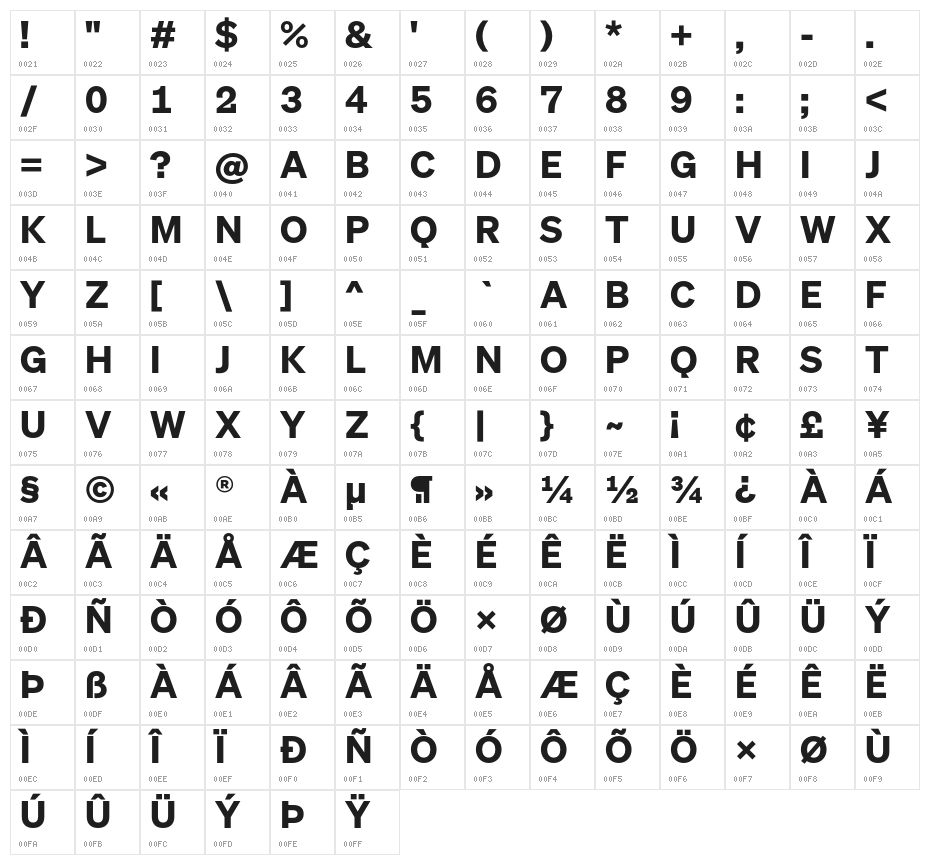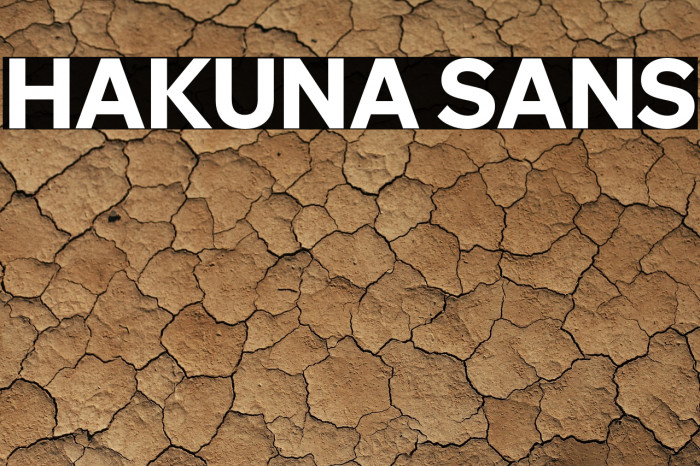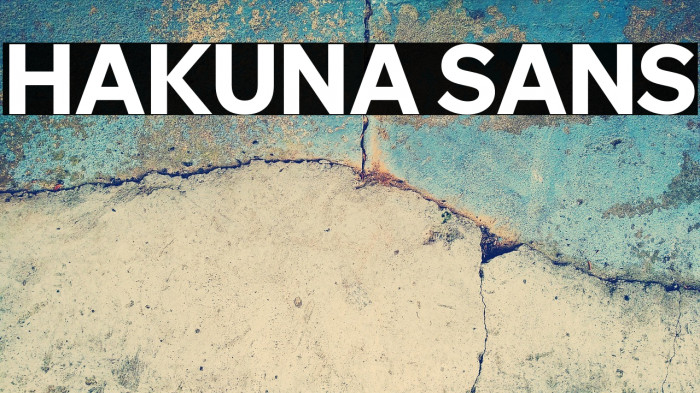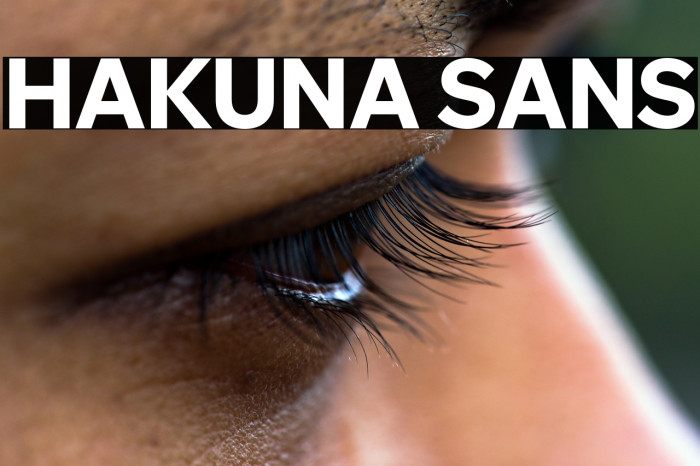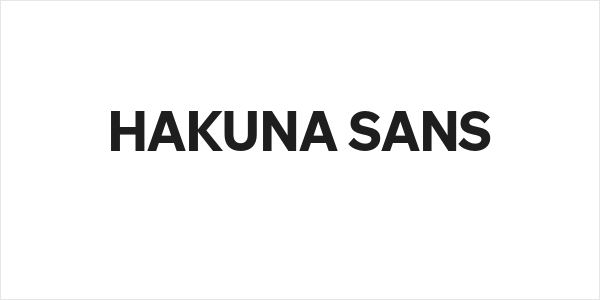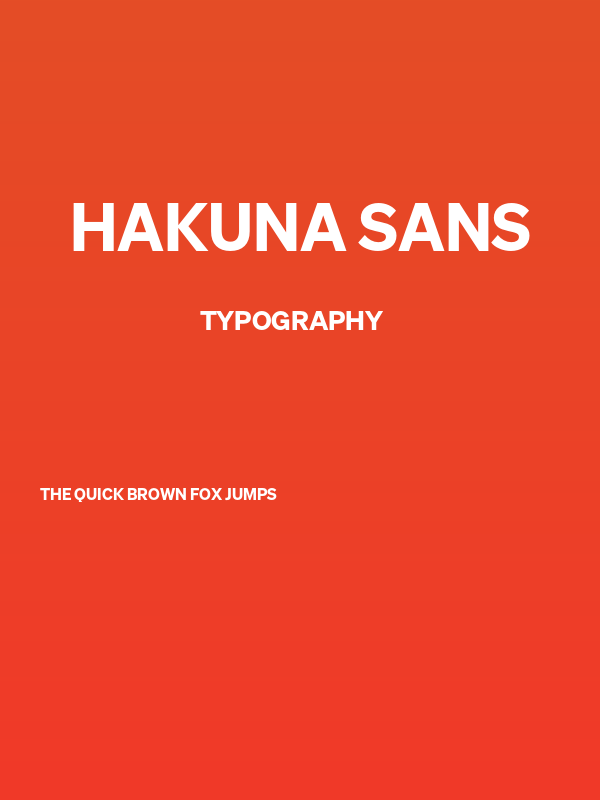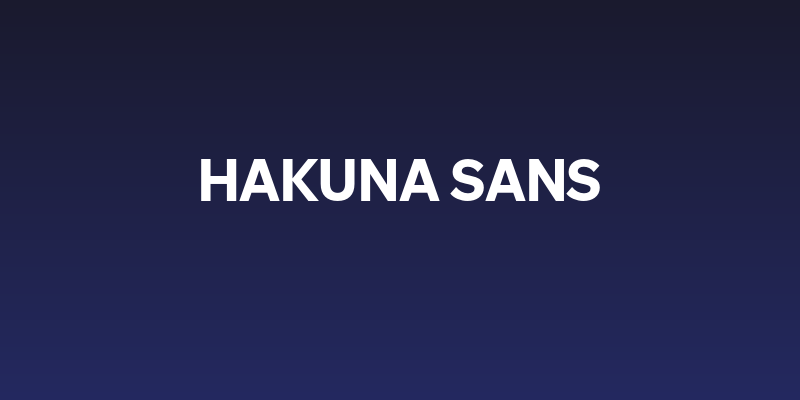
This font features a bold and robust design with clean, straight lines and uniform stroke widths, making it highly legible and impactful. The uppercase and lowercase letters are well-proportioned, with a modern sans-serif style that conveys a sense of strength and clarity. The numerals are consistent with the letterforms, maintaining the same boldness and simplicity. Special characters are included, matching the overall aesthetic with a straightforward and functional appearance. This font is versatile, suitable for various design needs where clarity and emphasis are required.
Proposed ProjectsIdeal for branding, advertising, headlines, posters, and any project requiring a strong visual impact.